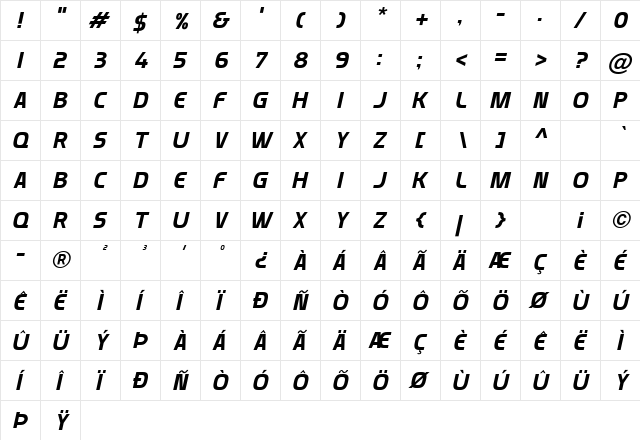
Munistic Italic
| Foundry | Vasily Draigo aka Daymarius |
| Designer | Vasily Draigo aka Daymarius |
Design Context for Munistic Typeface
Munistic offers clean, dependable letterforms without strong stylistic allegiance, making it a practical choice for designers who need flexibility. The slanted form adds forward momentum and visual energy.